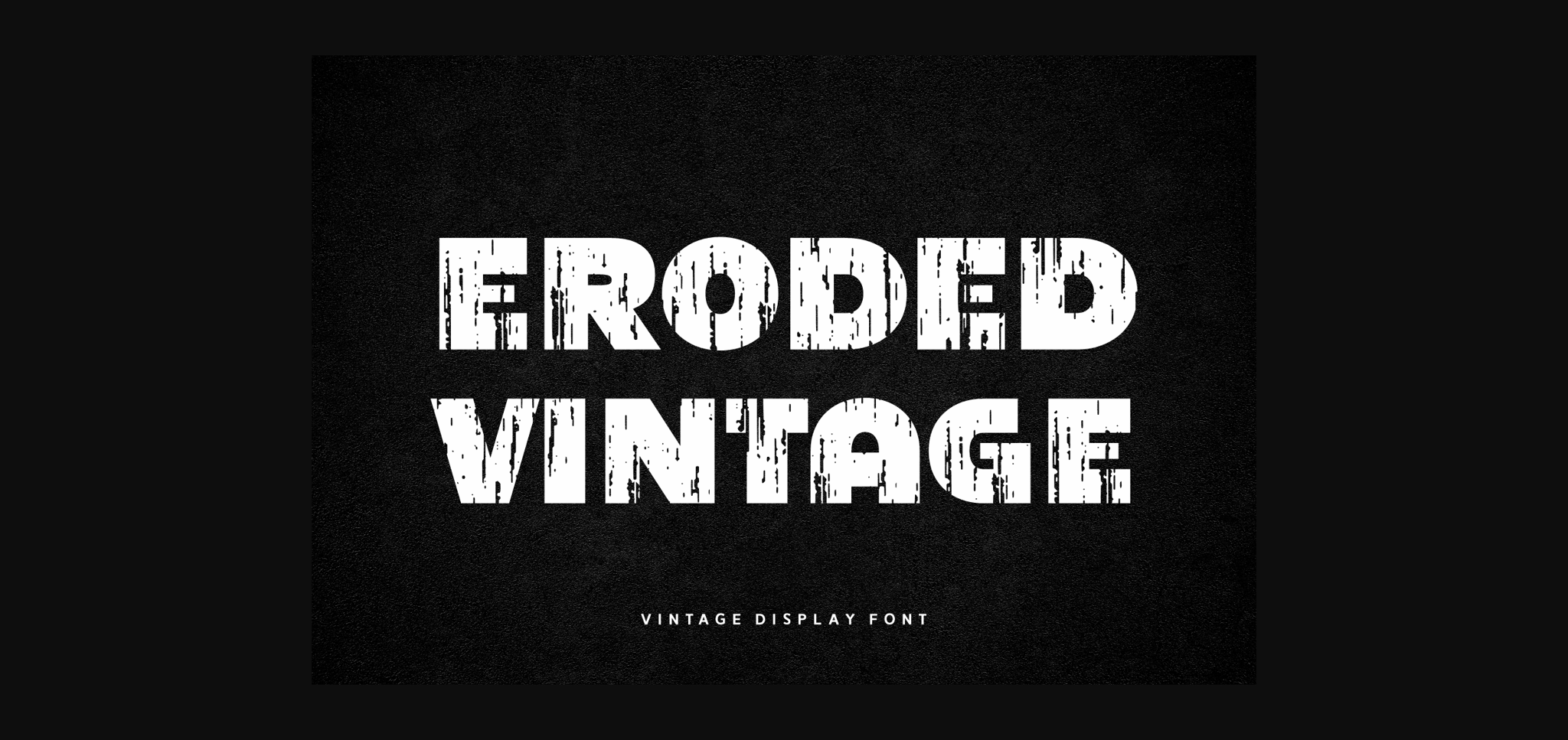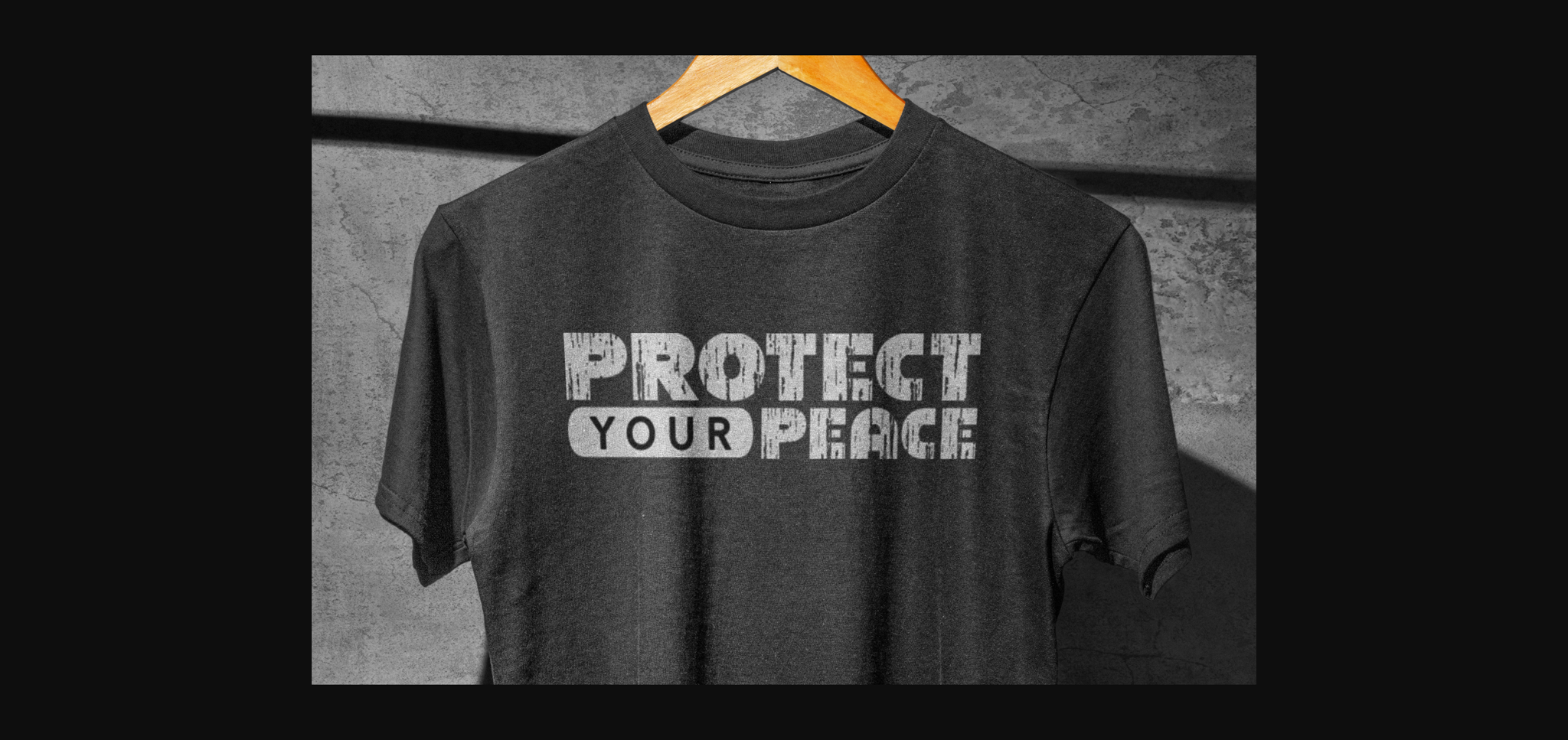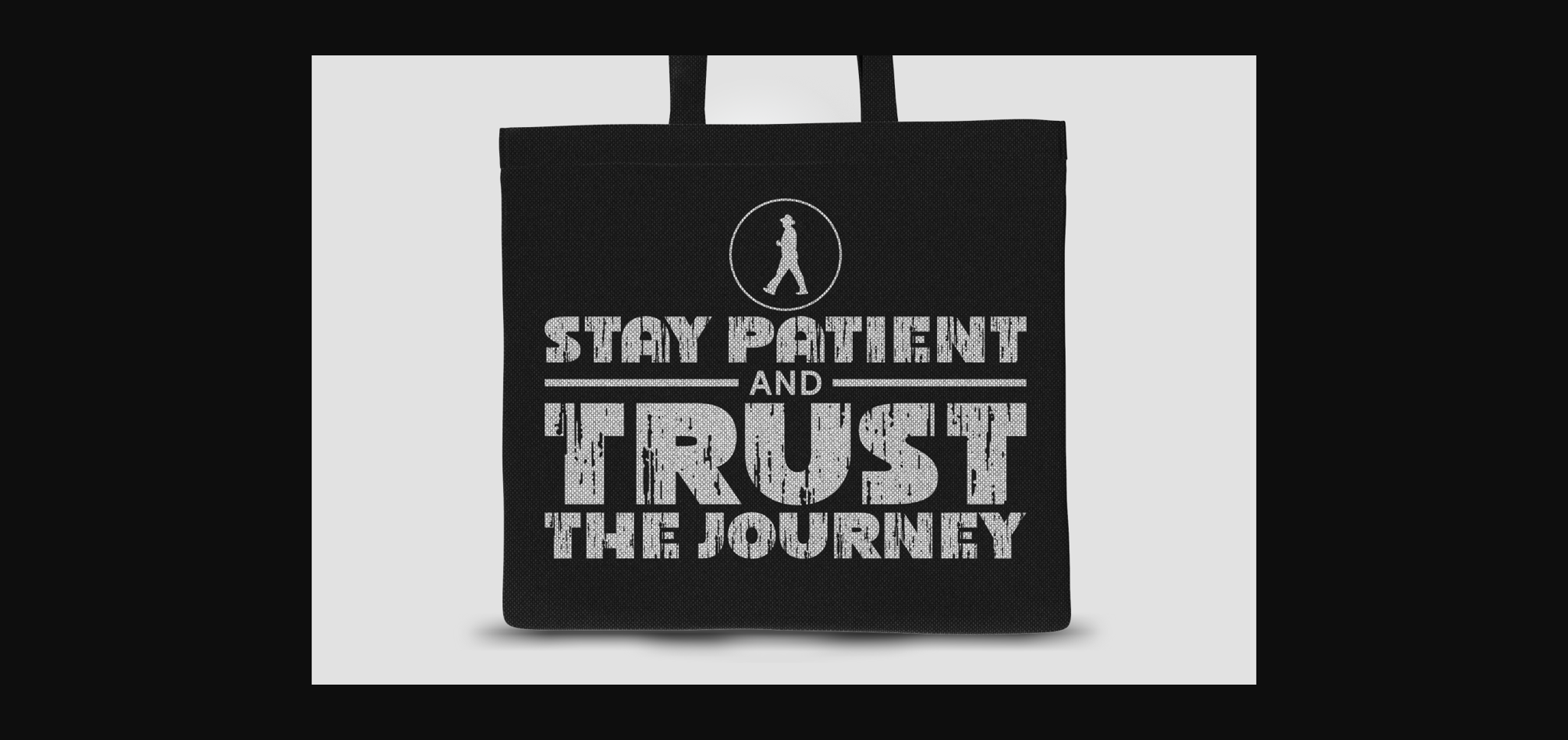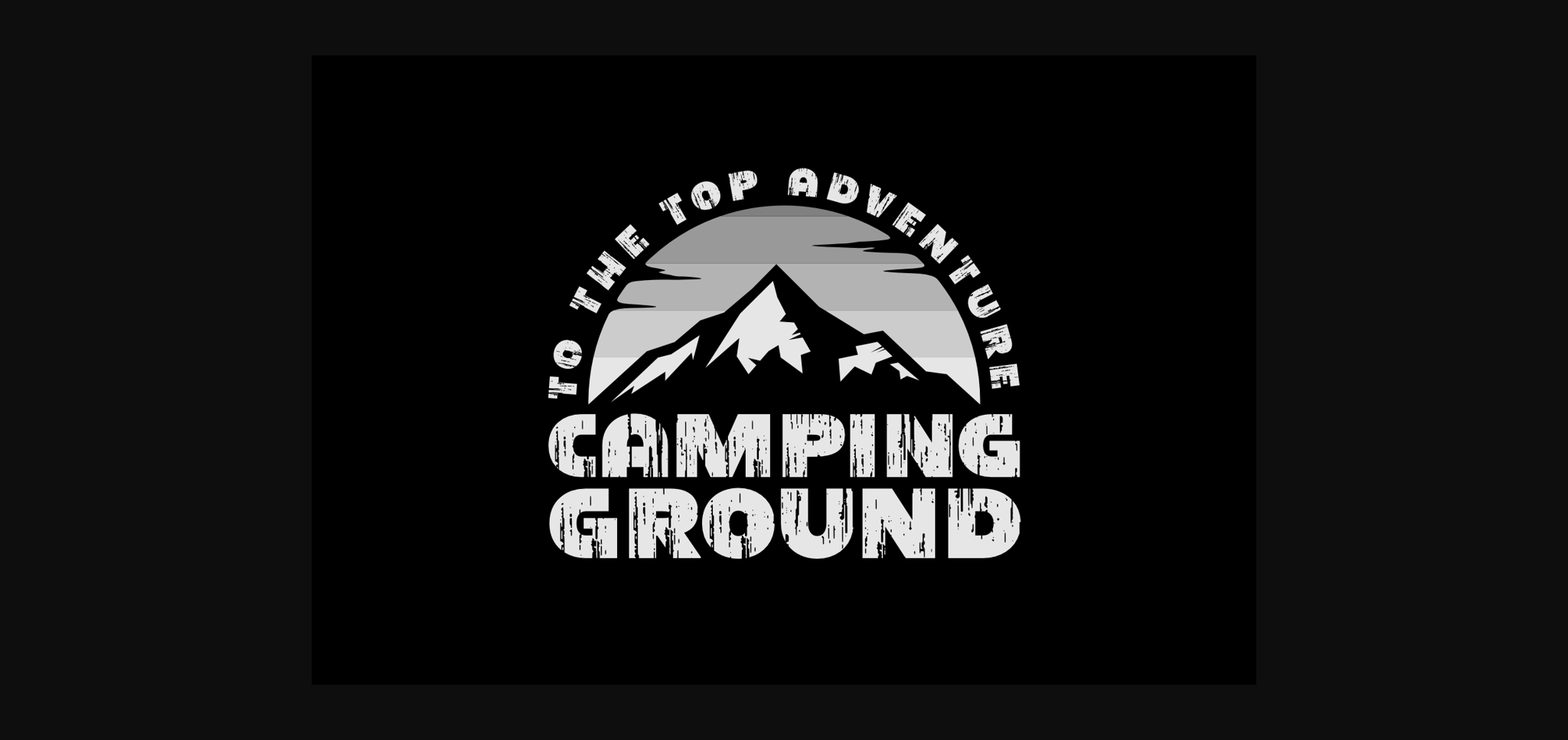
About Eroded Vintage Font
Eroded Vintage is a cool and weathered display font that brings a touch of retro grit to your designs. With its vintage charm and grungy appeal, this font adds character and nostalgia to any project. Perfect for creating bold headlines, signage, or posters, Eroded Vintage gives your text a worn-in, classic look. Embrace the old-school vibes and infuse your designs with a hint of rugged authenticity using this distinctive typeface.